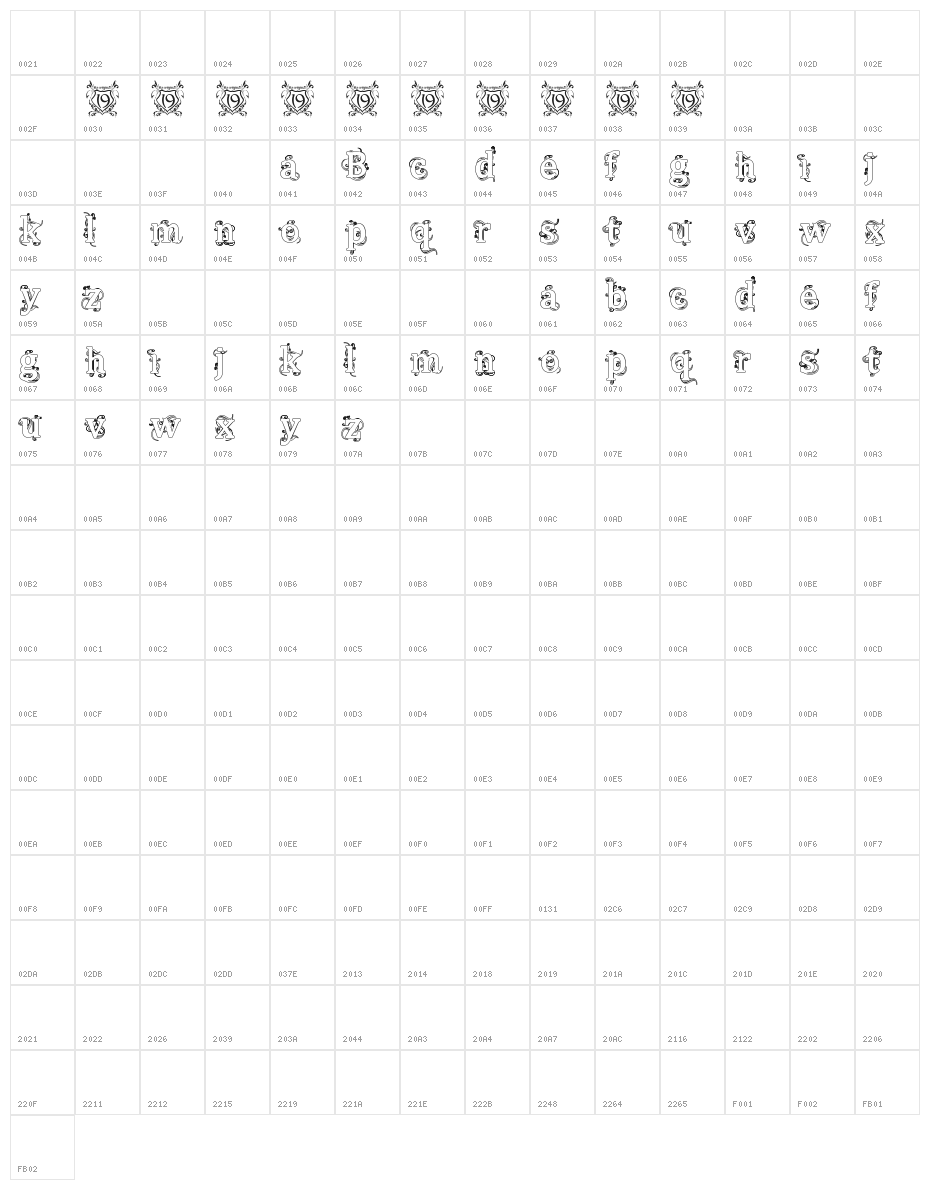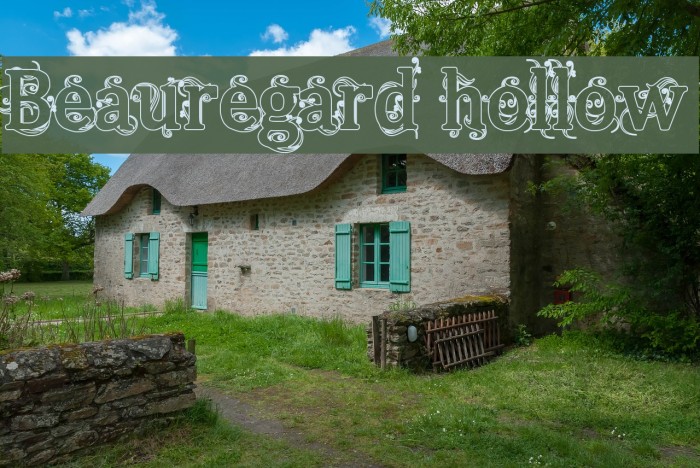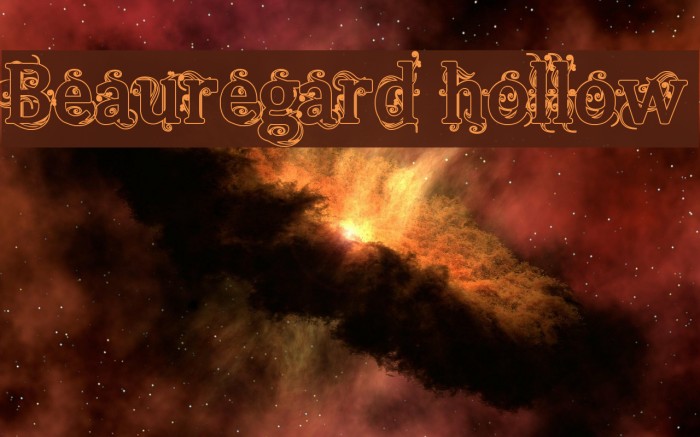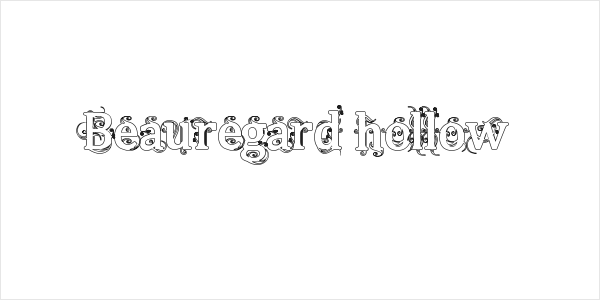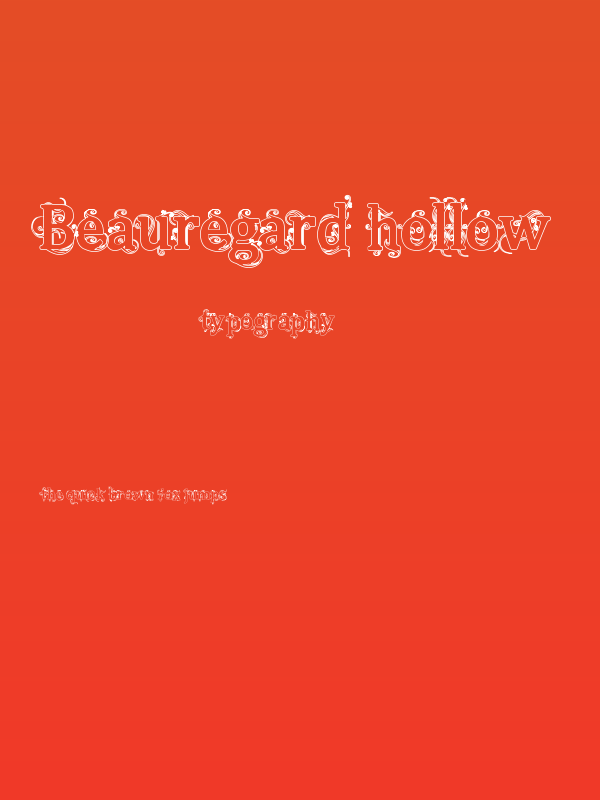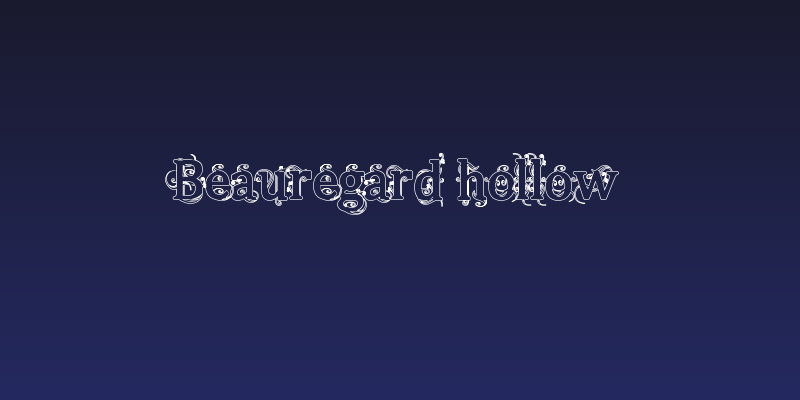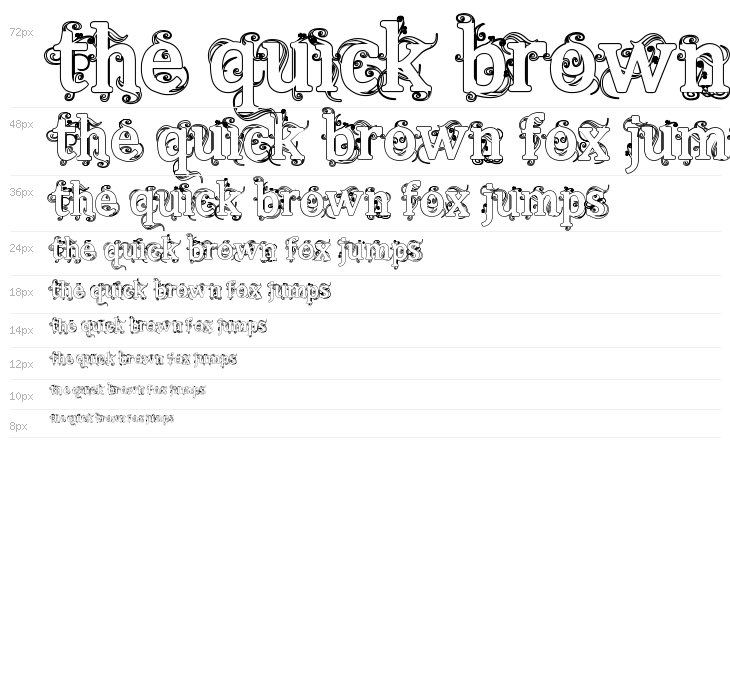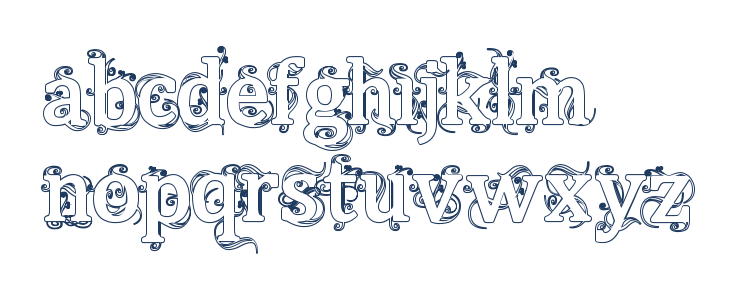
Beauregard Hollow Font
Beauregard Hollow Description
This font features an ornate and decorative style with intricate details and flourishes. Each character is designed with a hollow interior, giving it a unique and eye-catching appearance. The letters are embellished with swirling patterns and embellishments that add a sense of elegance and sophistication. The overall design is reminiscent of vintage or Victorian-era typography, making it suitable for projects that require a touch of classic charm. The font maintains a consistent style across both uppercase and lowercase letters, as well as numbers and special characters, ensuring a cohesive look in any design.
Overall StyleVintage
Use CaseLogos, Headlines, Decorative text
Proposed ProjectsIdeal for wedding invitations, vintage-themed posters, decorative signage, and branding projects that require a classic and elegant touch.